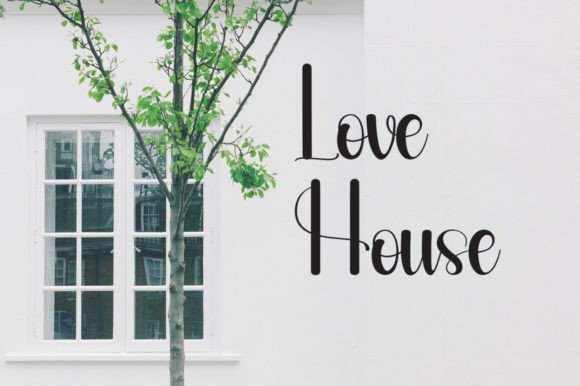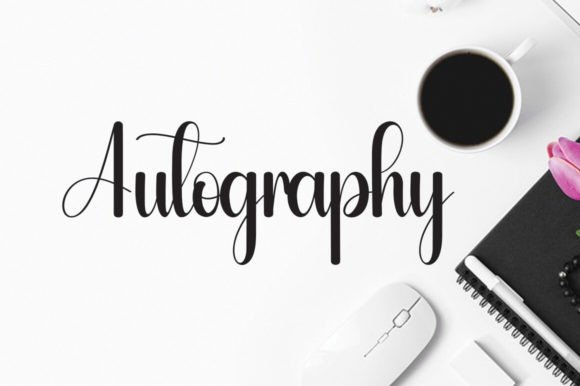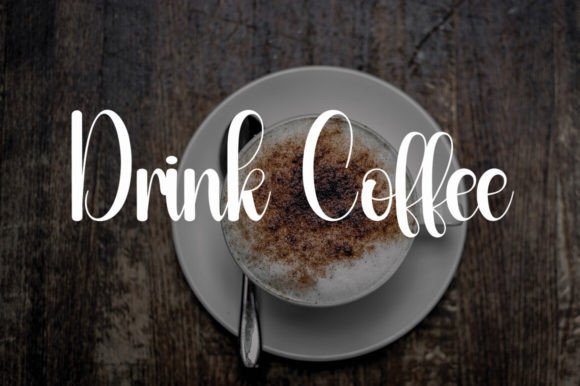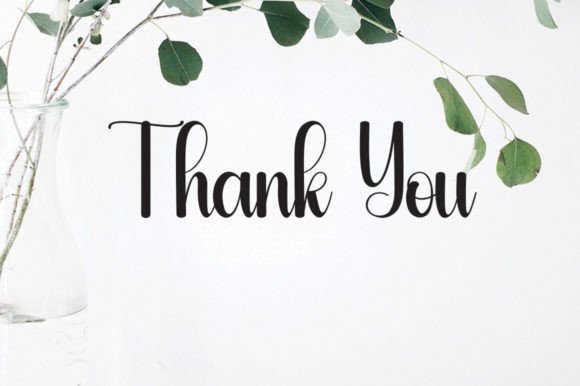
Introducing Handwritten: A Delectable and Flowing Calligraphic Font
In the world of typography, few fonts manage to capture the essence of elegance and playfulness simultaneously. However, Handwritten, a delectable and flowing calligraphic font, achieves this delicate balance with remarkable finesse. Blending simplicity and sophistication, this tender typeface promises to embellish a myriad of creative concepts, infusing them with a delightful, amorous essence.
The Perfect Blend of Simplicity and Elegance
Handwritten is more than just a font; it’s an expression of emotion. Its design is rooted in the art of calligraphy, bringing a personal and intimate feel to any project. The fluid strokes and gentle curves of Handwritten evoke a sense of warmth and connection, making it perfect for designs that aim to resonate with the audience on a personal level.
Whether you’re working on a romantic greeting card, a sophisticated branding project, or a charming packaging design, Handwritten offers the versatility to adapt and flourish. Its unique blend of simplicity and elegance ensures that your designs stand out with a touch of class and a dash of whimsy.
Infusing Designs with a Delightful, Amorous Essence
The playful yet sophisticated nature of Handwritten is one of its most compelling features. This font doesn’t just convey messages; it tells stories of love, joy, and affection. When you use Handwritten in your projects, you’re not just choosing a font; you’re embedding your designs with an emotional resonance that captivates and charms.
Imagine crafting a wedding invitation that feels like a whispered promise, a children’s book that comes alive with every turn of the page, or a brand identity that speaks directly to the heart of your audience. Handwritten makes these scenarios possible, adding a layer of depth and emotion that elevates your designs from ordinary to extraordinary.
Why Choose Handwritten?
- Emotional Connection: Handwritten creates an instant emotional connection with your audience, making your designs more relatable and engaging.
- Versatility: Suitable for a wide range of projects, from romantic and whimsical to sophisticated and elegant.
- Ease of Use: Despite its elegant appearance, Handwritten is remarkably easy to read and use in various contexts.
- Unique Appeal: Stands out in a sea of standard fonts, giving your designs a distinctive and memorable look.
Tips for Using Handwritten Effectively
To make the most of Handwritten, consider the following tips:
- Mix and Match: Combine Handwritten with other fonts to create contrast and add depth to your designs.
- Adjust Size and Color: Experiment with different sizes and colors to emphasize certain words or phrases.
- Use in Moderation: While Handwritten is beautiful, using it sparingly can make it more impactful.
Handwritten – a font that softly whispers love and joy into your projects. It’s more than just a typeface; it’s a tool for designers and crafters to convey emotion, tell stories, and connect with their audience on a deeper level. With its delectable and flowing calligraphic style, Handwritten promises to transform your designs, adding a touch of elegance, playfulness, and heart.
So, if you’re looking to infuse your projects with a delightful, amorous essence, look no further than Handwritten. Let this tender typeface be the voice of your creativity, whispering sweet nothings to your audience and leaving a lasting impression.